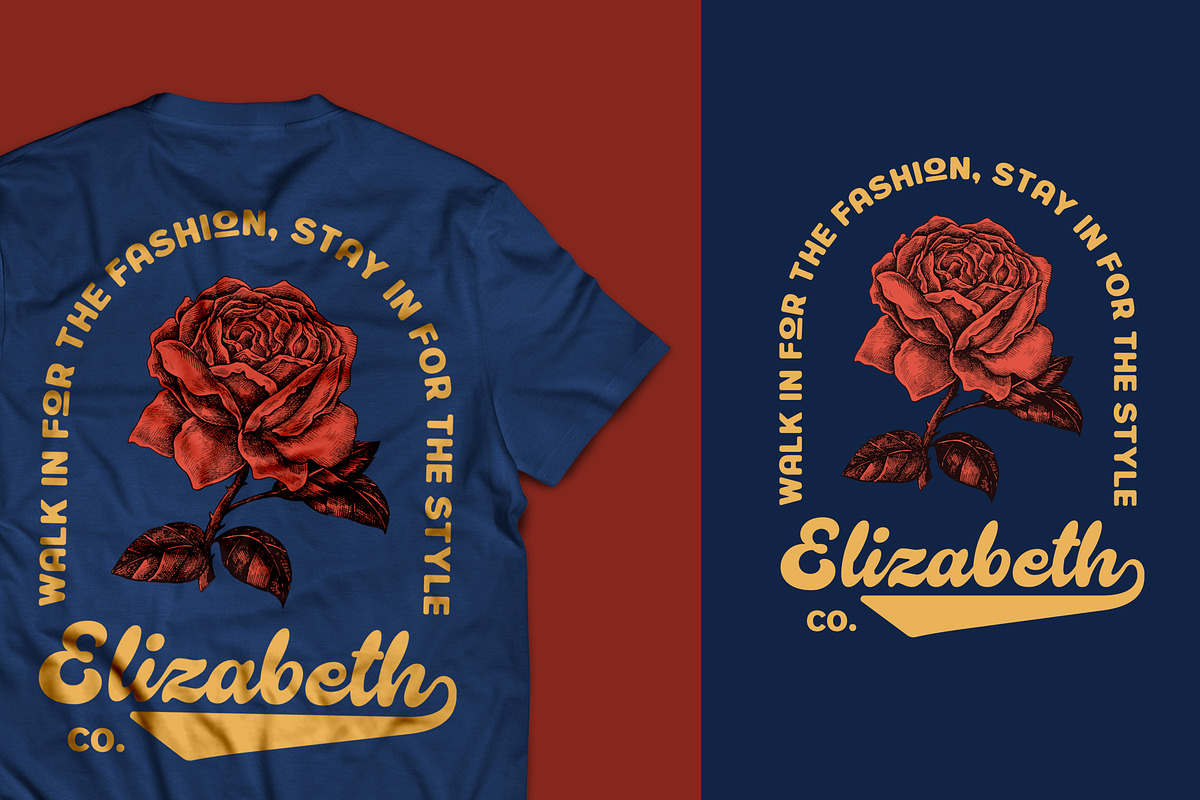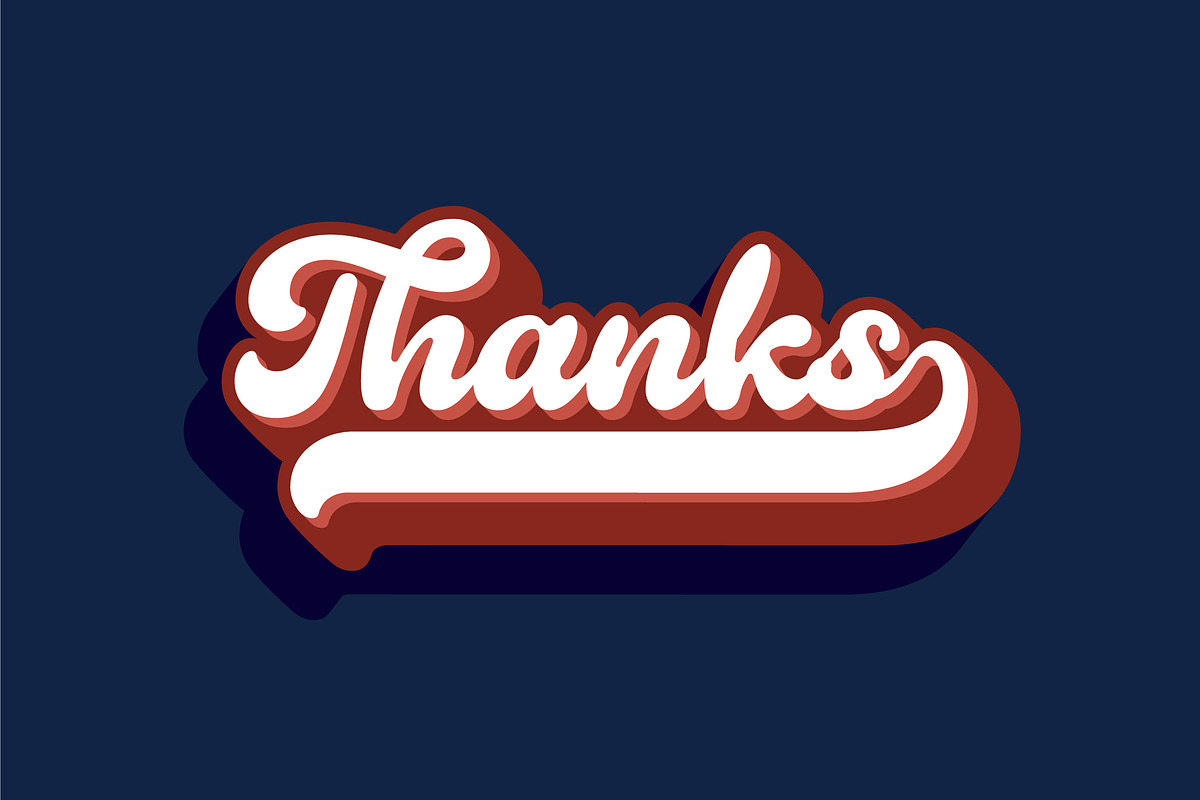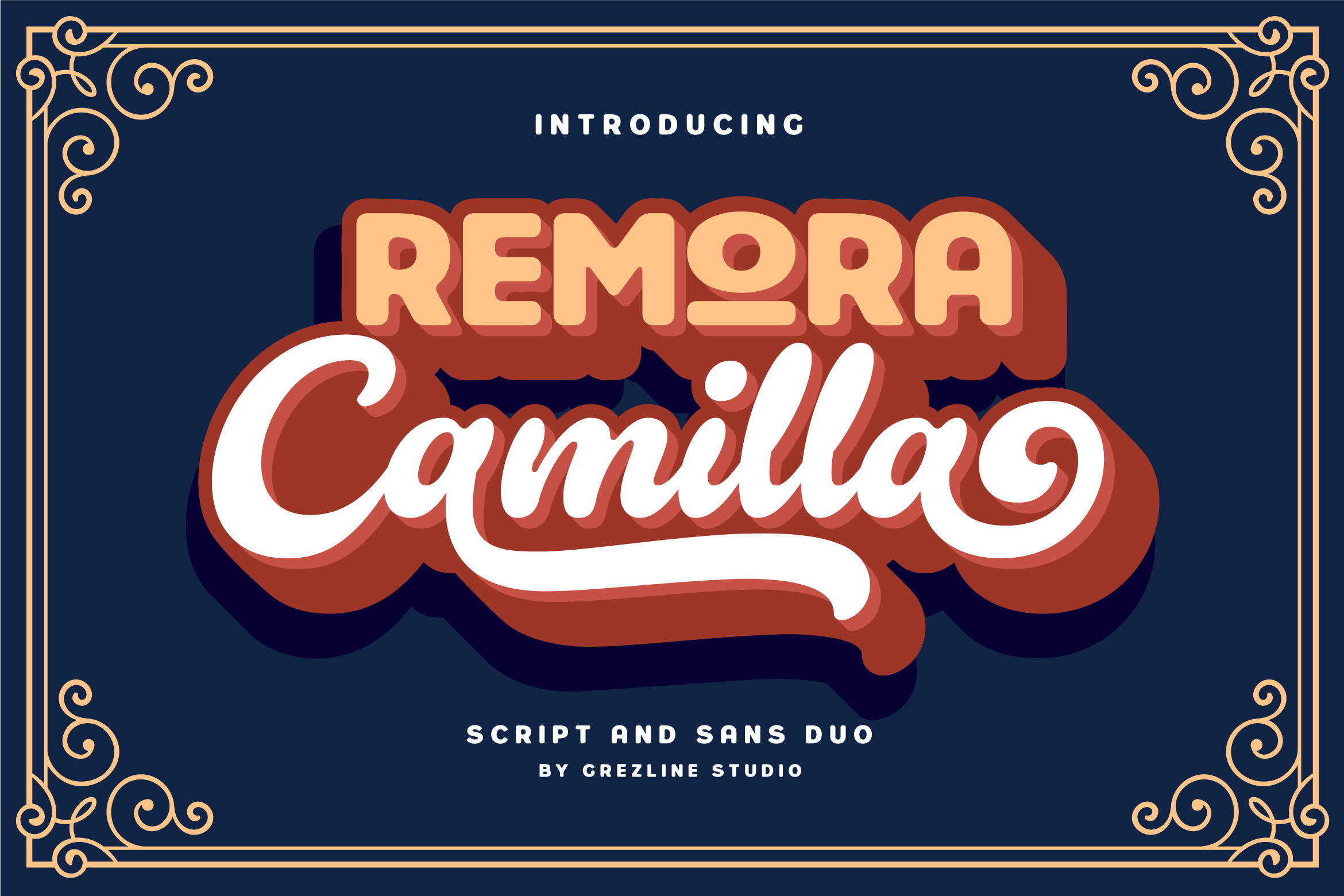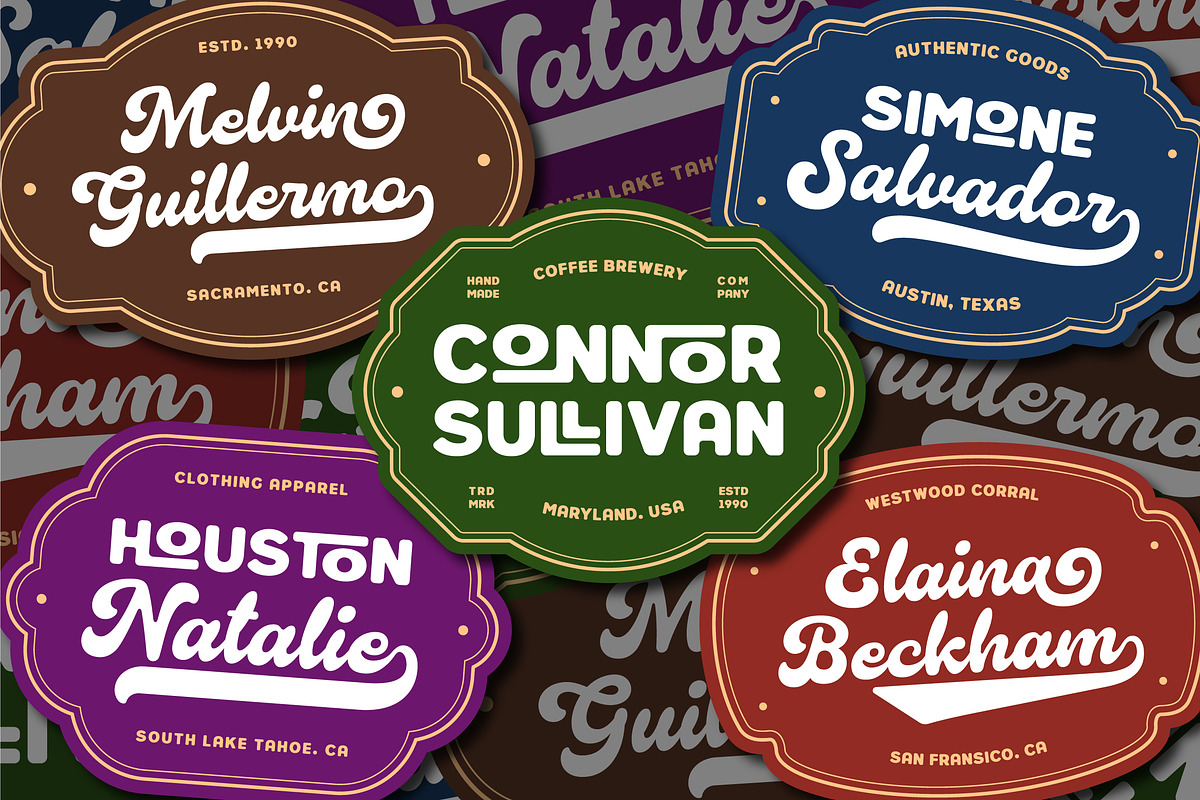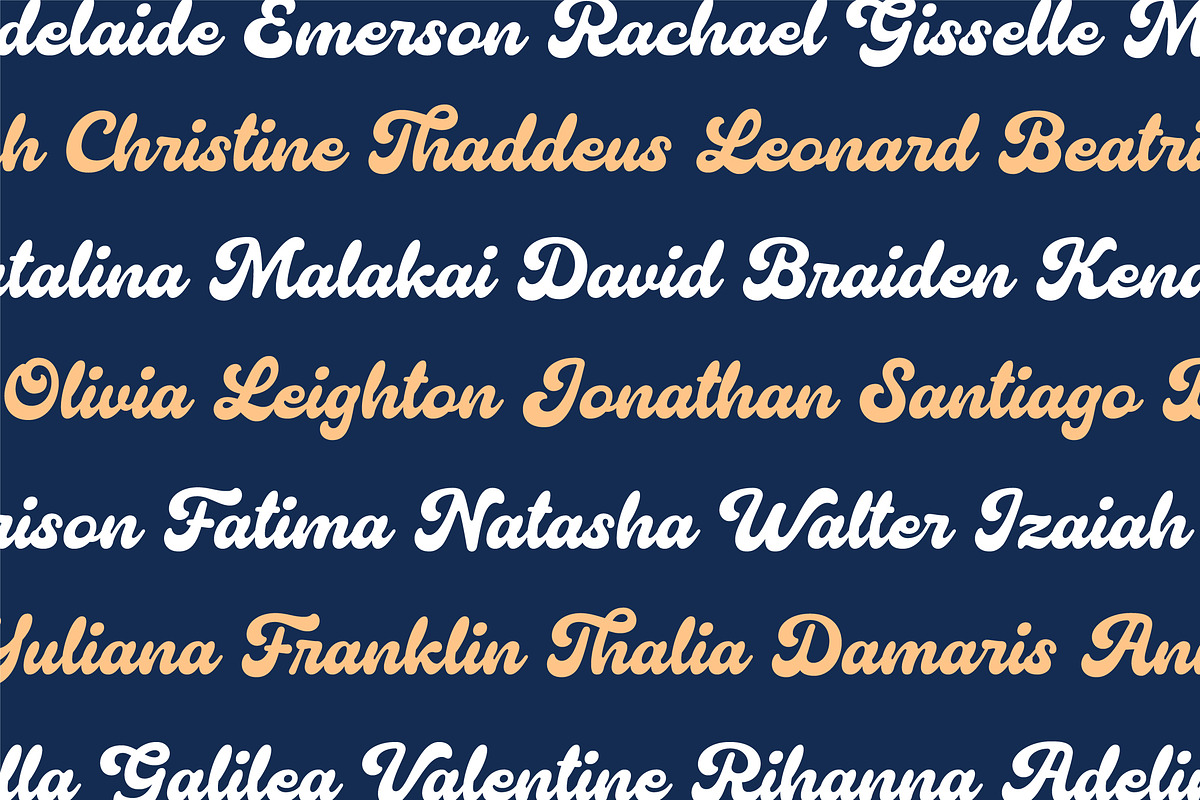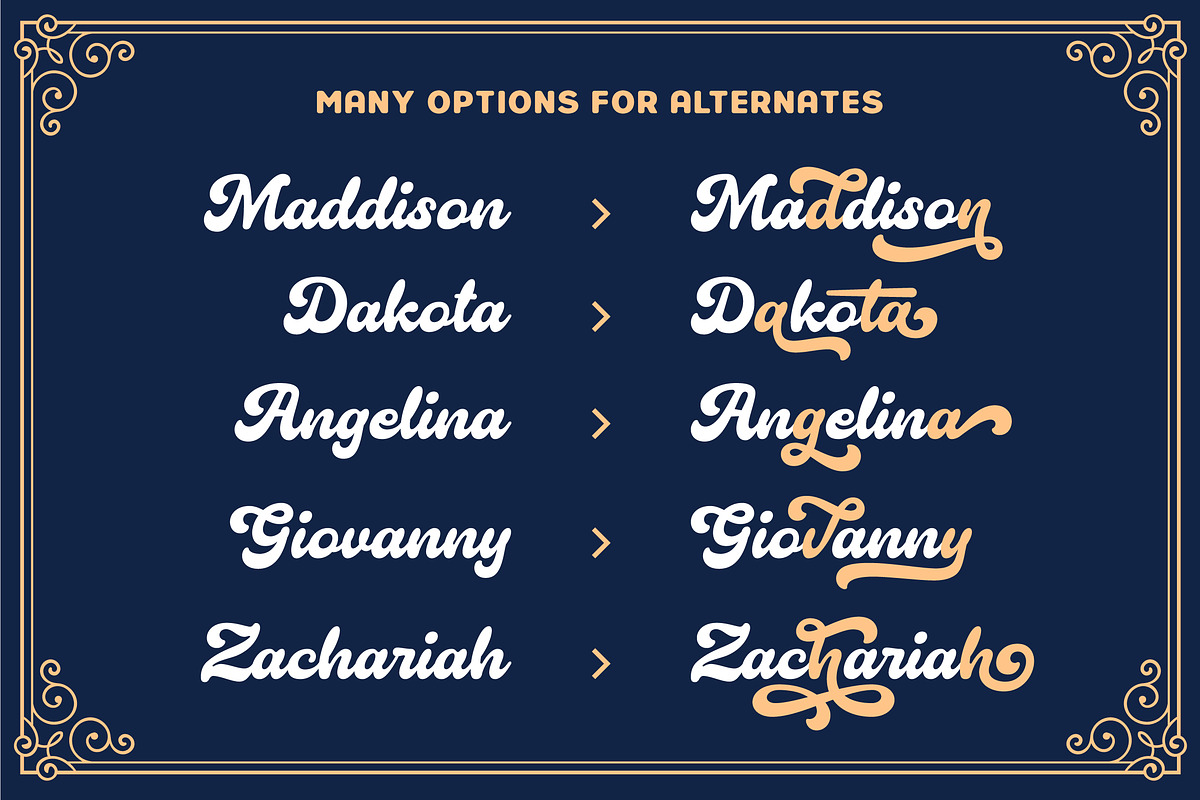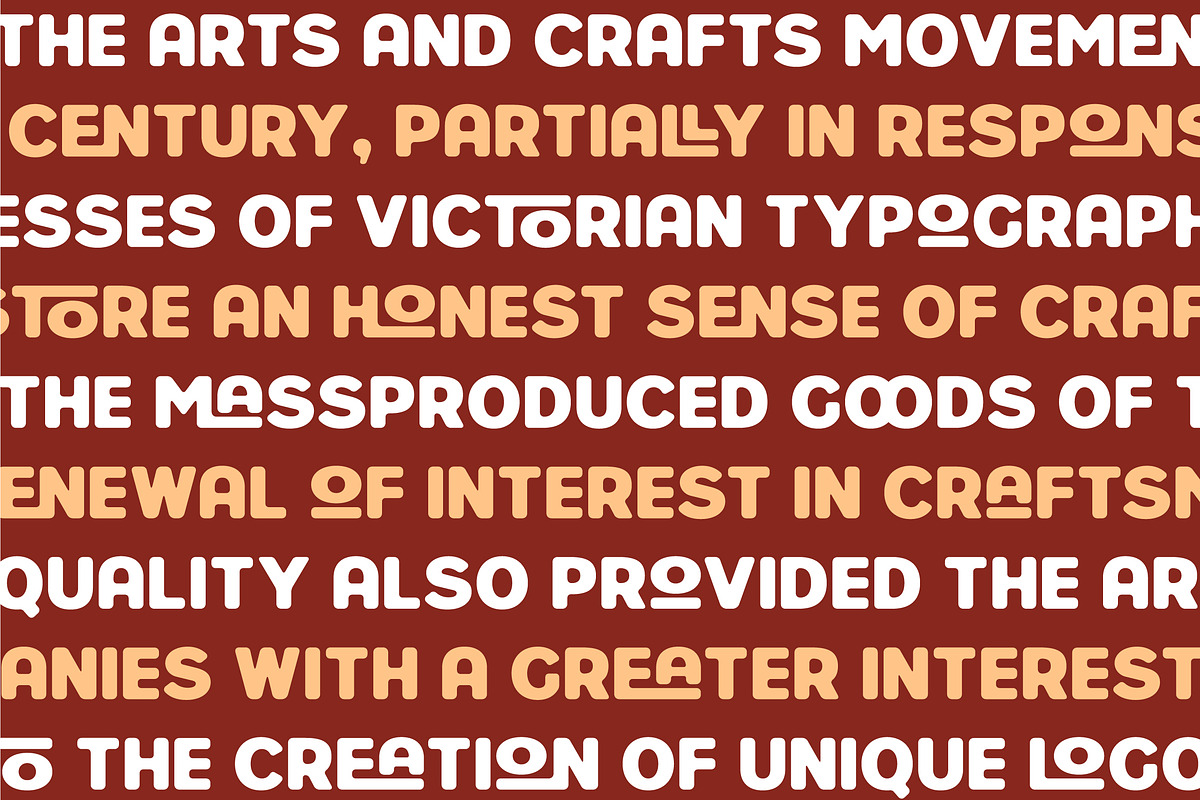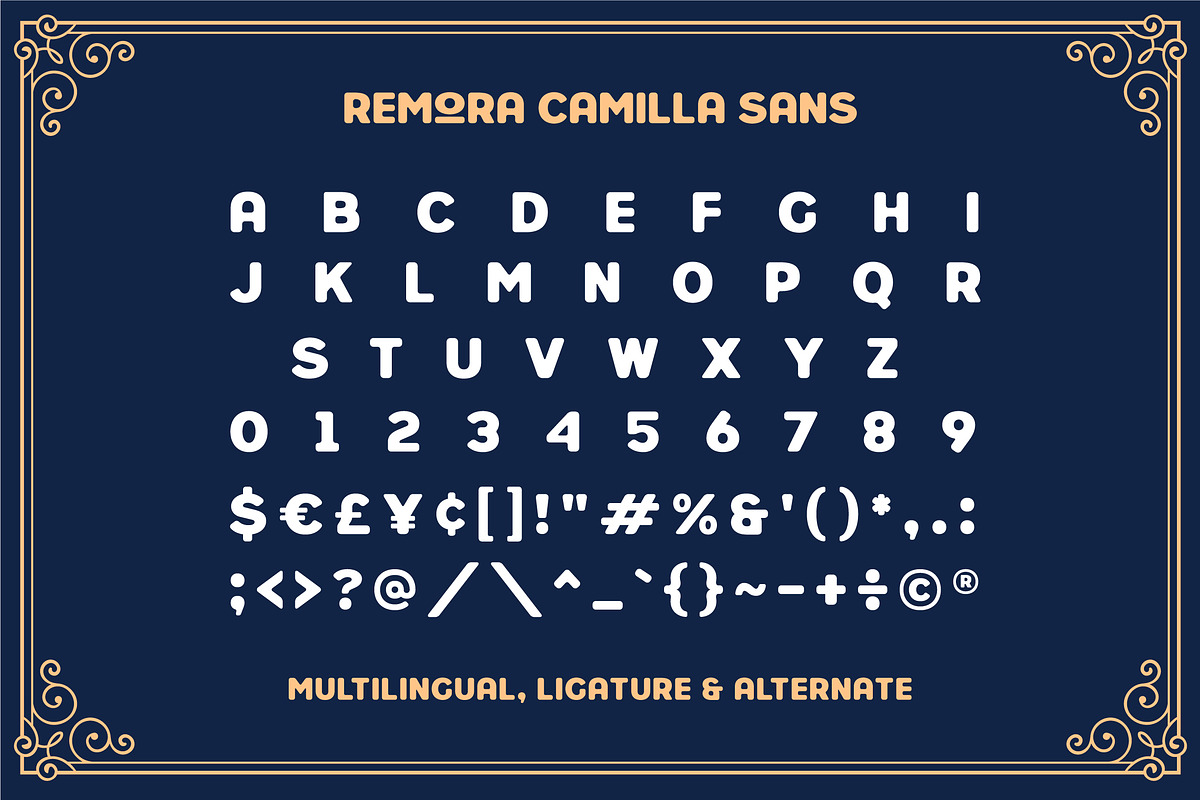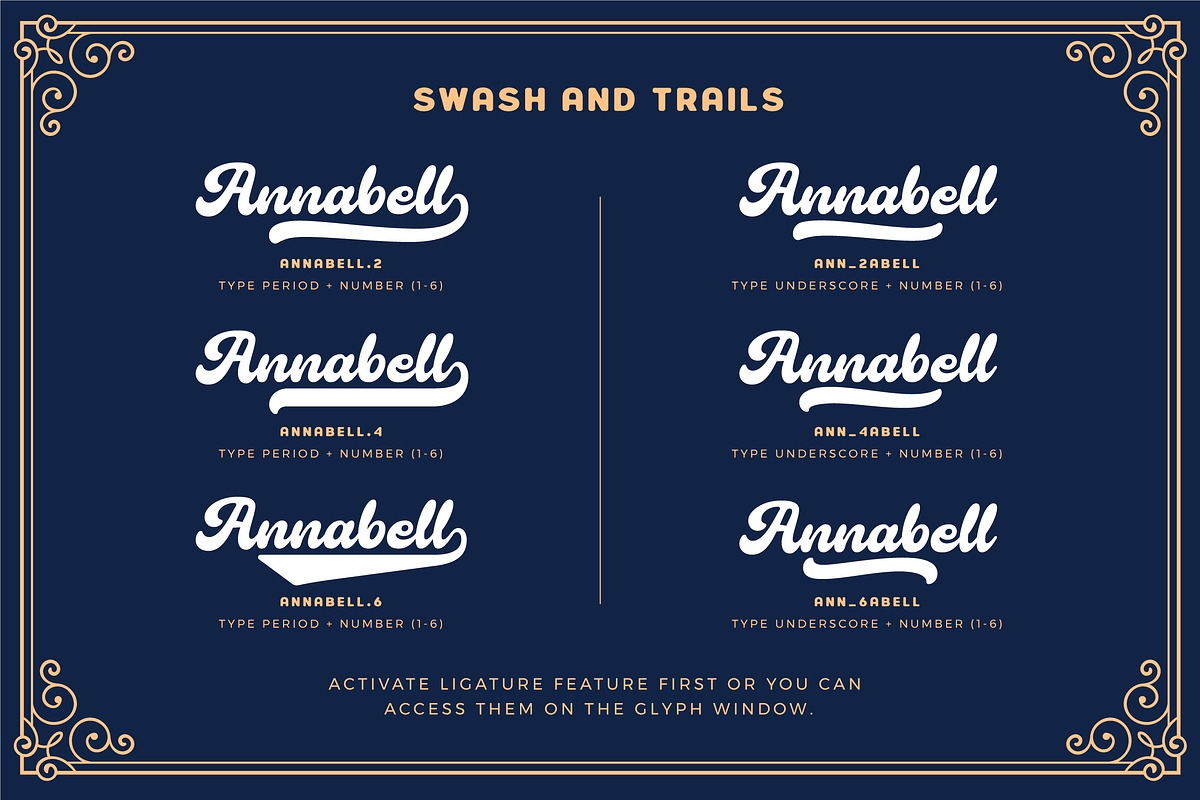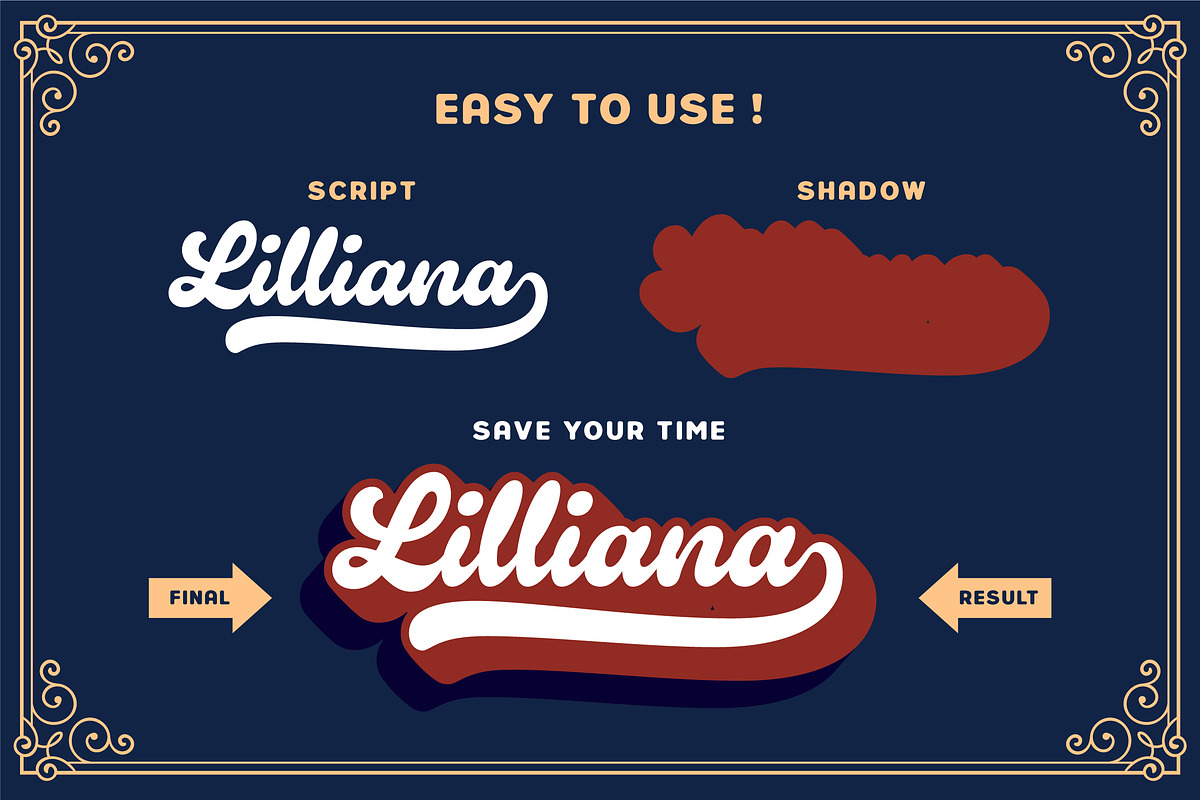
Remora Camilla - Font Duo
Remora Camilla is a display script and unique sans font pair with a charming retro personality. They also have strong and bold characteristics. This font will be an appealing asset to your fonts’ library, as they have the potential to enhance any design project. Remora Camilla is perfect for headings, covers, posters, logos, quotes, product packaging, merchandise, social media and much more!
Combine them to make your creation more spectacular!
- A lot of Alternates ( With a Total of 700+ Glyphs )
- Multilingual Language